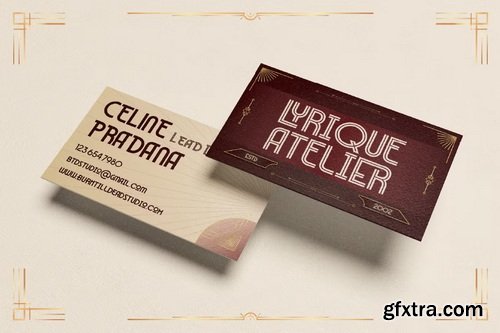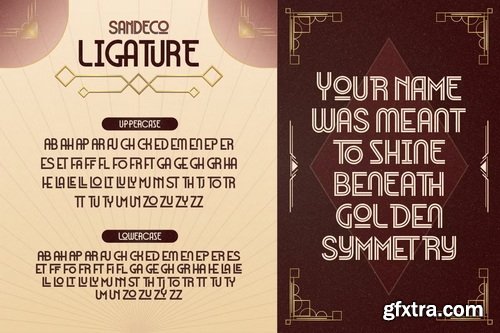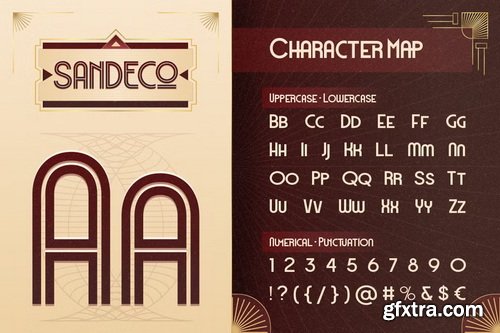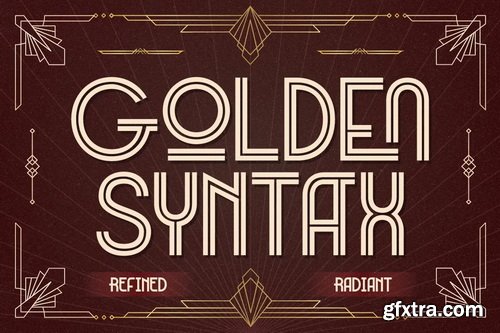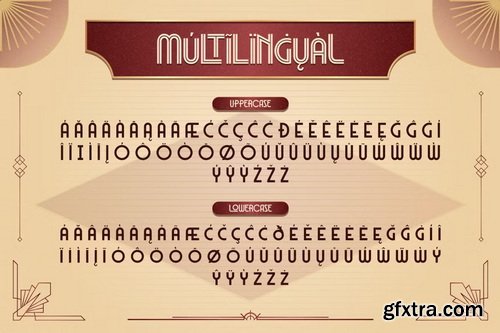
CreativeMarket - SanDeco Font
- Proudly introducing, SanDeco, an elegant Art Deco-inspired font, full of character and perfect for design projects that aim to highlight a classic vintage feel with a modern twist. Available in two styles: Regular and Inline, SanDeco brings a luxurious, retro, and exclusive vibe—making it ideal for designs that want to feel timeless yet contemporary. The Inline style adds a dynamic touch reminiscent of vintage billboards from the Art Deco era. Perfect for logos, restaurants, hotels, luxury brands, movie posters, wedding invitations, editorial layouts, and more.